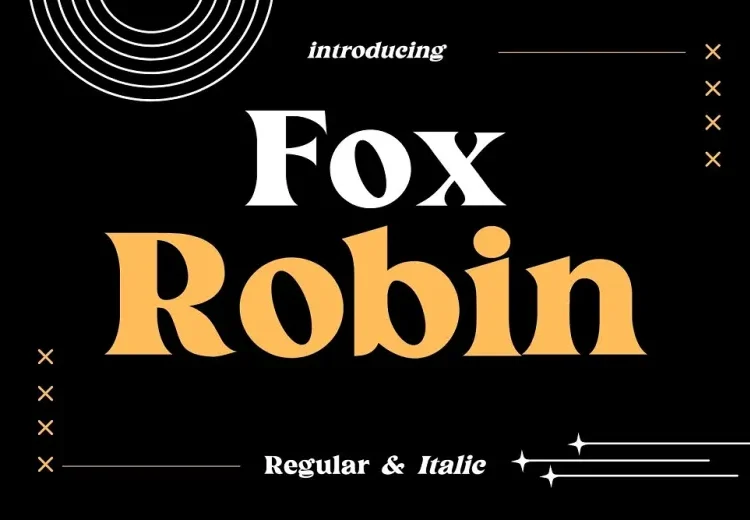
Fox Robin Font
Fox Robin is a charming serif font that seamlessly blends contemporary flair with traditional elegance. Its versatile design makes it an excellent choice for a wide range of projects. Whether you’re working on modern branding or classic print materials, Fox Robin adapts beautifully to various design needs.
This font is perfect for bloggers looking to enhance their online presence, as well as for creating distinctive logos and branding elements. Its refined style also lends itself well to advertisements, invitations, greeting cards, and planners. Additionally, Fox Robin is a great choice for personal projects such as photo albums and decorative items, adding a touch of sophistication and style to your creations.
With its balanced and attractive appearance, Fox Robin offers both practicality and aesthetic appeal, making it a valuable addition to your design toolkit.